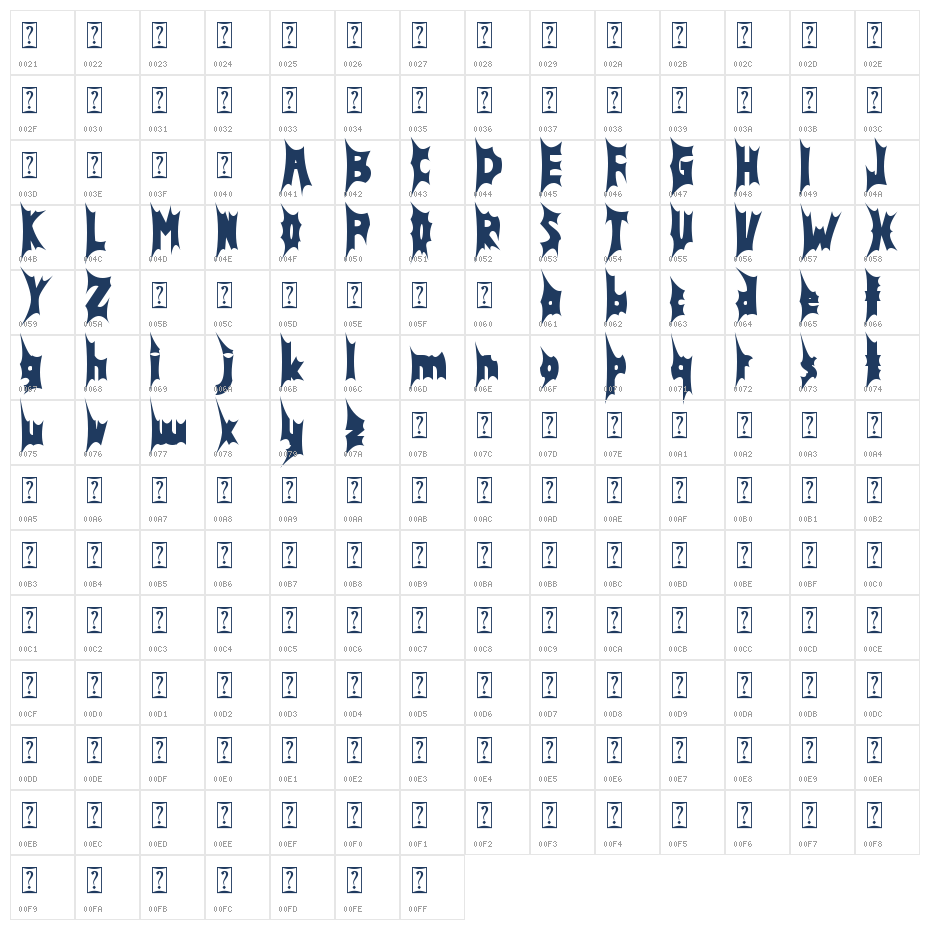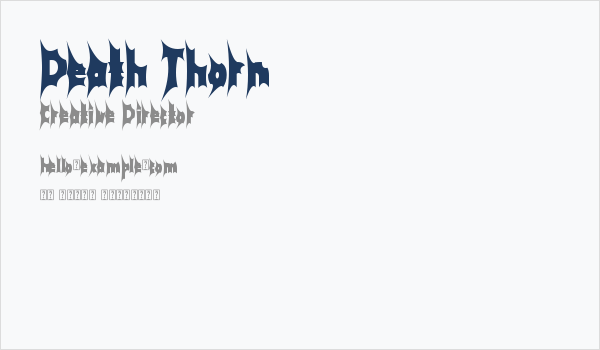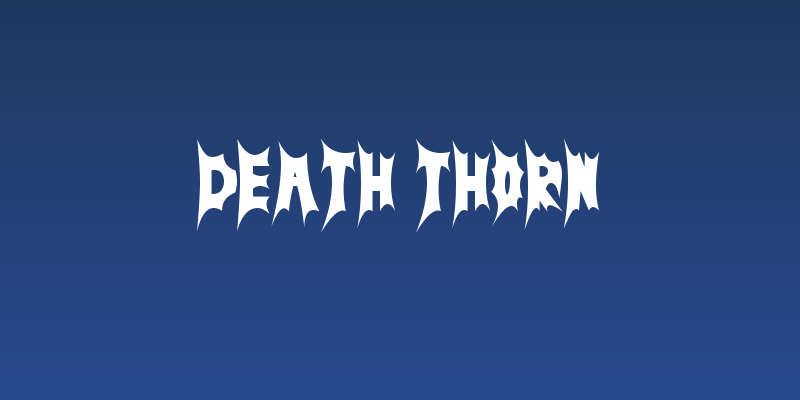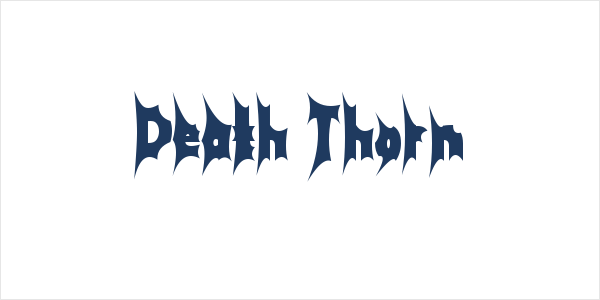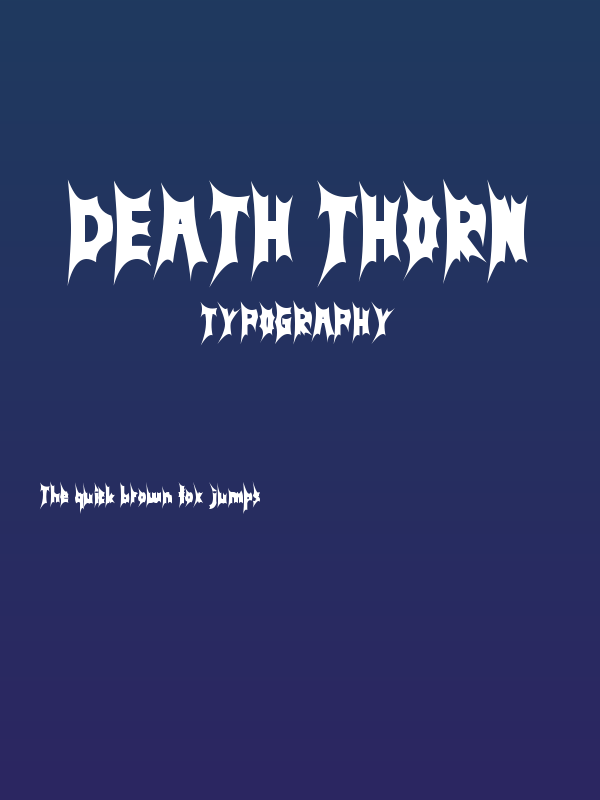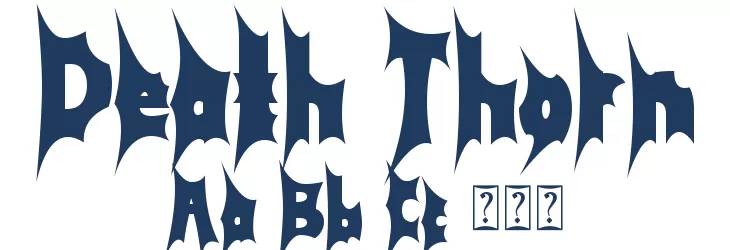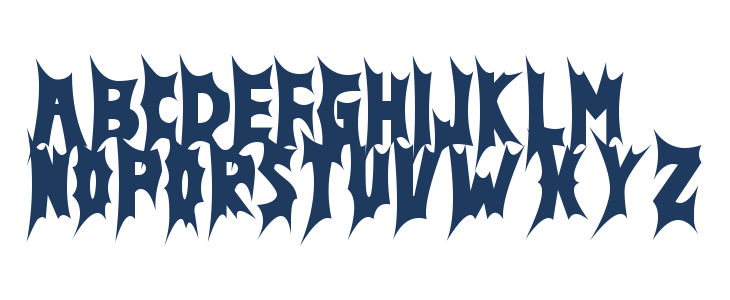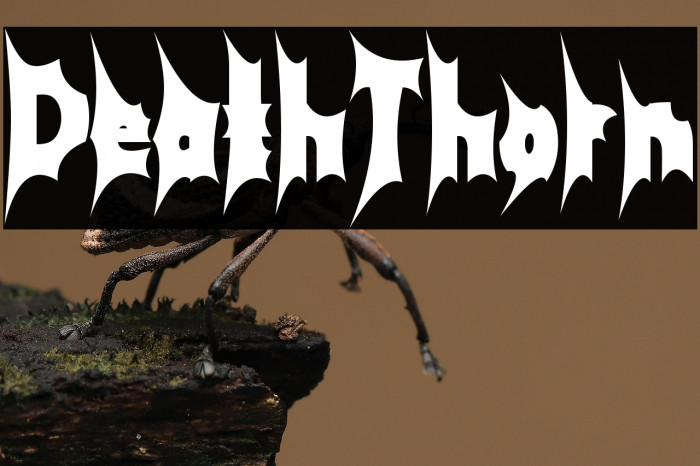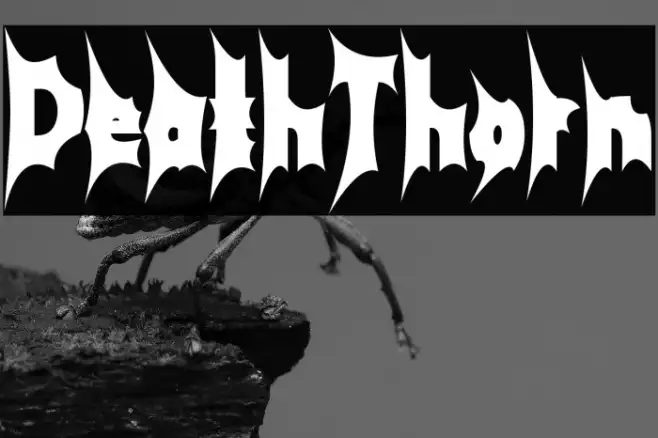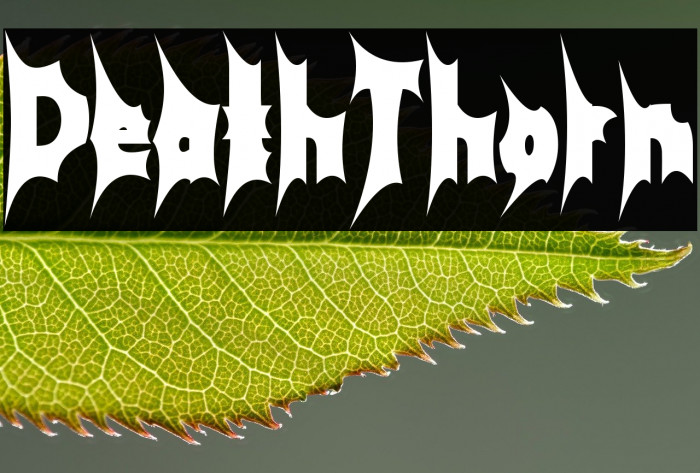
Death Thorn Font
Death Thorn Description
A decorative, gothic-inspired display font with sharp, jagged edges and a bold presence, suitable for attention-grabbing titles and logos.
Death Thorn
| Overall Style | Gothic, Dark, Edgy |